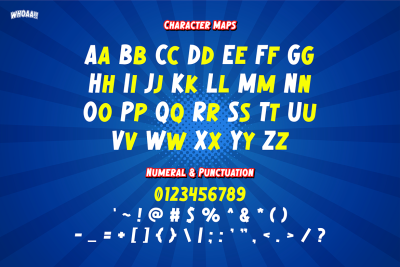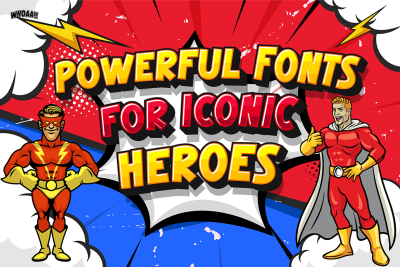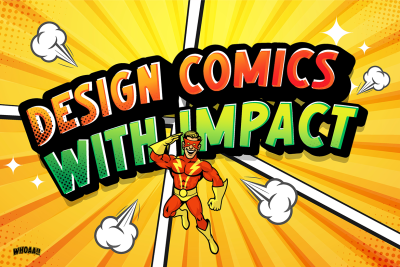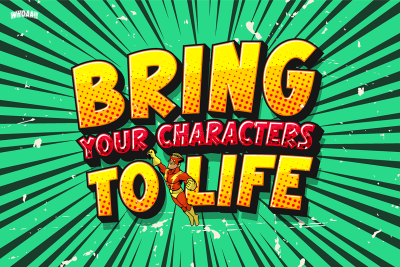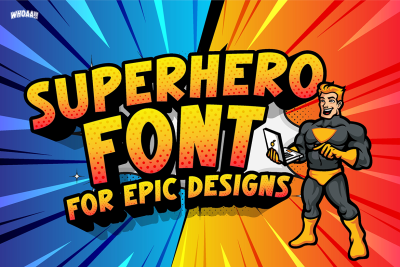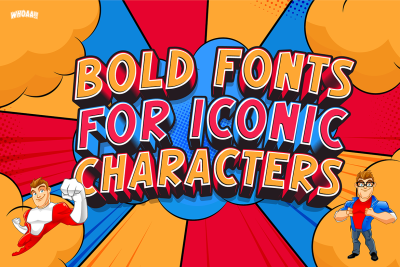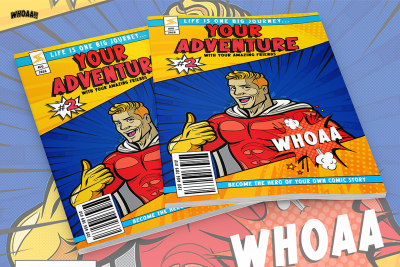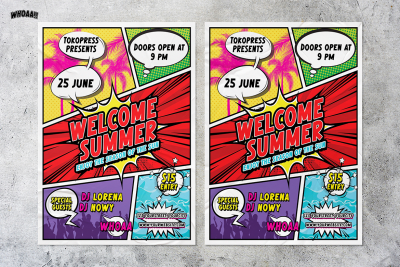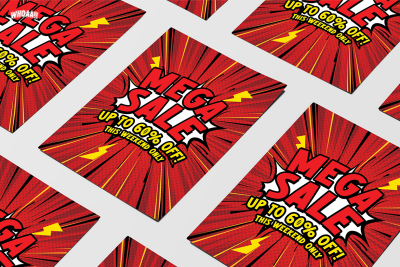
Kids Font WHOAA is a bold and energetic typeface that instantly grabs attention with its comic-inspired design. This fun and lively font is perfect for projects that need an extra dose of excitement and creativity. With thick, vibrant letterforms and a playful layout, WHOAA brings a dynamic look that appeals to kids and adults alike.
The fontโs comic-book style, with bold strokes and smooth curves, adds an adventurous vibe to any design. Its clean lines and high legibility make it versatile for both small text and large titles. Additionally, the pop-art feel of Kids Font WHOAA makes it stand out, whether used in colorful posters, playful advertisements, or vibrant digital graphics. Itโs perfect for adding energy and fun to your creative projects, ensuring that your designs are both eye-catching and engaging.
Moreover, WHOAA performs equally well across digital and print platforms. Whether youโre crafting interactive game designs or creating bold packaging for kidsโ products, this font adapts seamlessly. Its unique aesthetic ensures your designs will leave a lasting impression.
Kids Font WHOAA is ideal for designers, educators, parents, and marketers who want to create lively and impactful designs. Itโs particularly suited for comic books, posters, and story titles where bold visuals are a priority. The fontโs dynamic style captures childrenโs attention, making it great for interactive educational materials or fun presentations.
Businesses focused on kid-friendly products can use Kids Font WHOAA for branding, packaging, and advertisements. Itโs a perfect choice for marketing toys, games, or creative kits, as it aligns with the playful energy of these products. Moreover, apps, websites, and videos for kids can use this font to create a dynamic and engaging user experience.
Parents can also benefit from this font for DIY projects like birthday invitations or party decorations. Teachers can use it to design exciting lesson materials that make learning more enjoyable. Whether youโre creating posters, event banners, or digital content, Kids Font WHOAA delivers the perfect balance of boldness and playfulness to elevate your projects. Its versatility and unique comic-inspired aesthetic make it a must-have for child-focused designs.